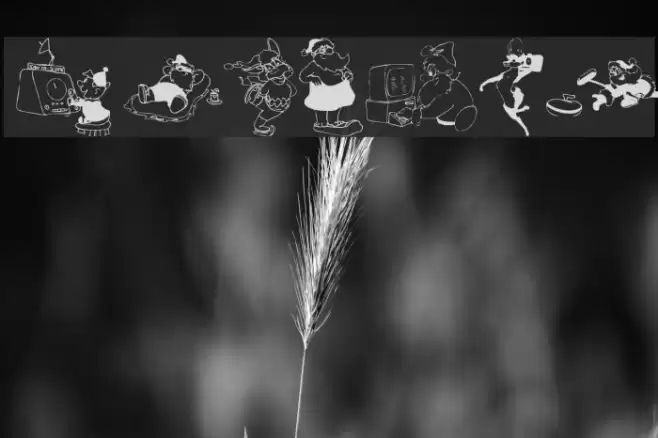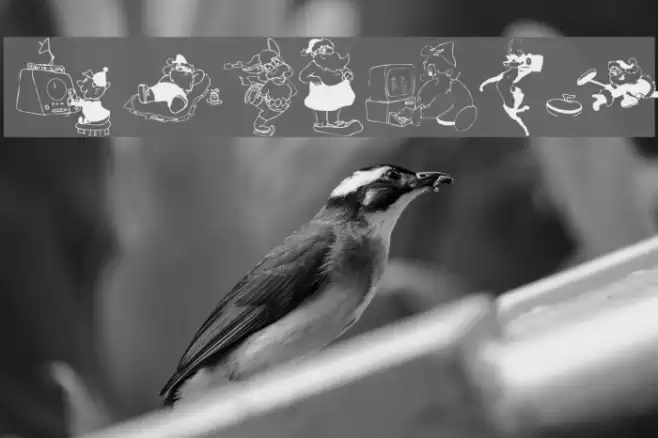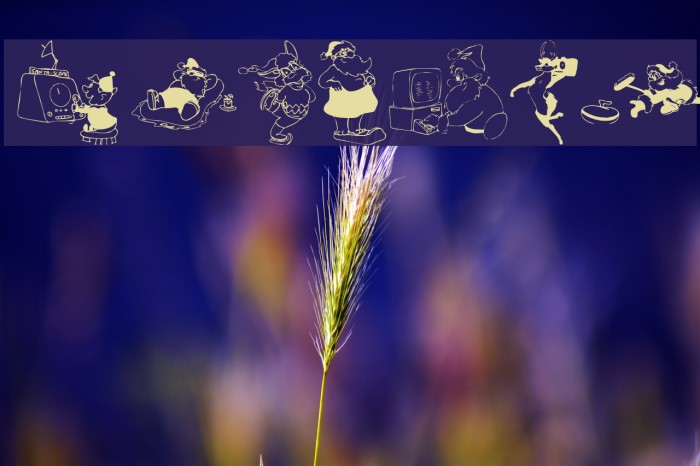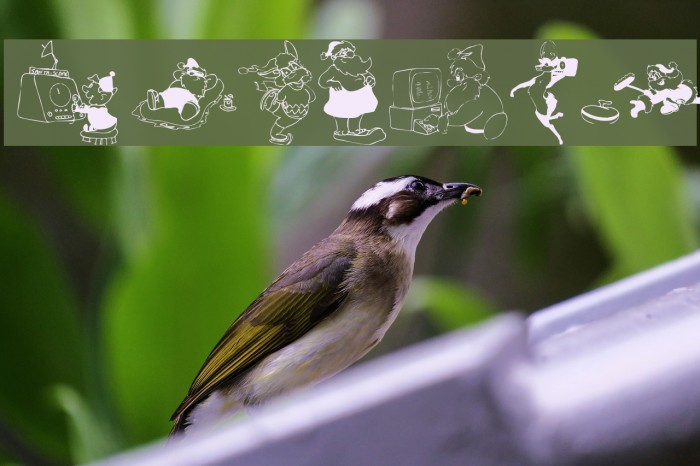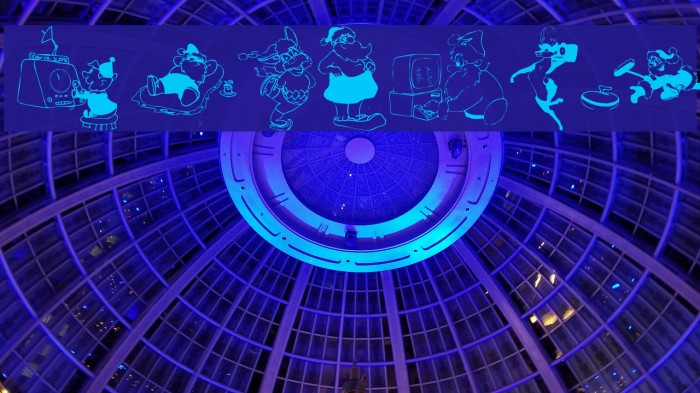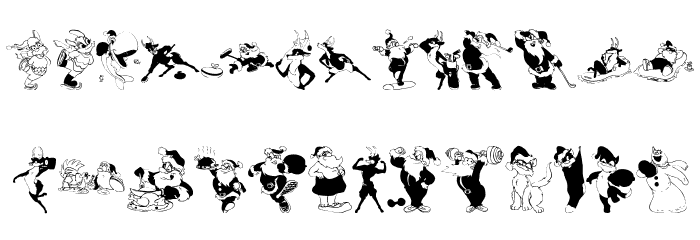
XmasOne Font
XmasOne Description
A highly decorative and playful typeface where each character is represented by a detailed cartoon illustration, likely inspired by comic or animated characters, making it more of a pictorial or novelty font than a traditional text font.
Cartoon character illustrations replace standard letterforms for a whimsical effect from Christmas (Xmas) fonts.
- Proposed Projects: Children’s party invitations, comic book covers, themed event posters, novelty greeting cards.
- Overall Style: Decorative, Playful, Whimsical
- Use Case: Logos, Headlines, Themed graphics, Not suitable for body text